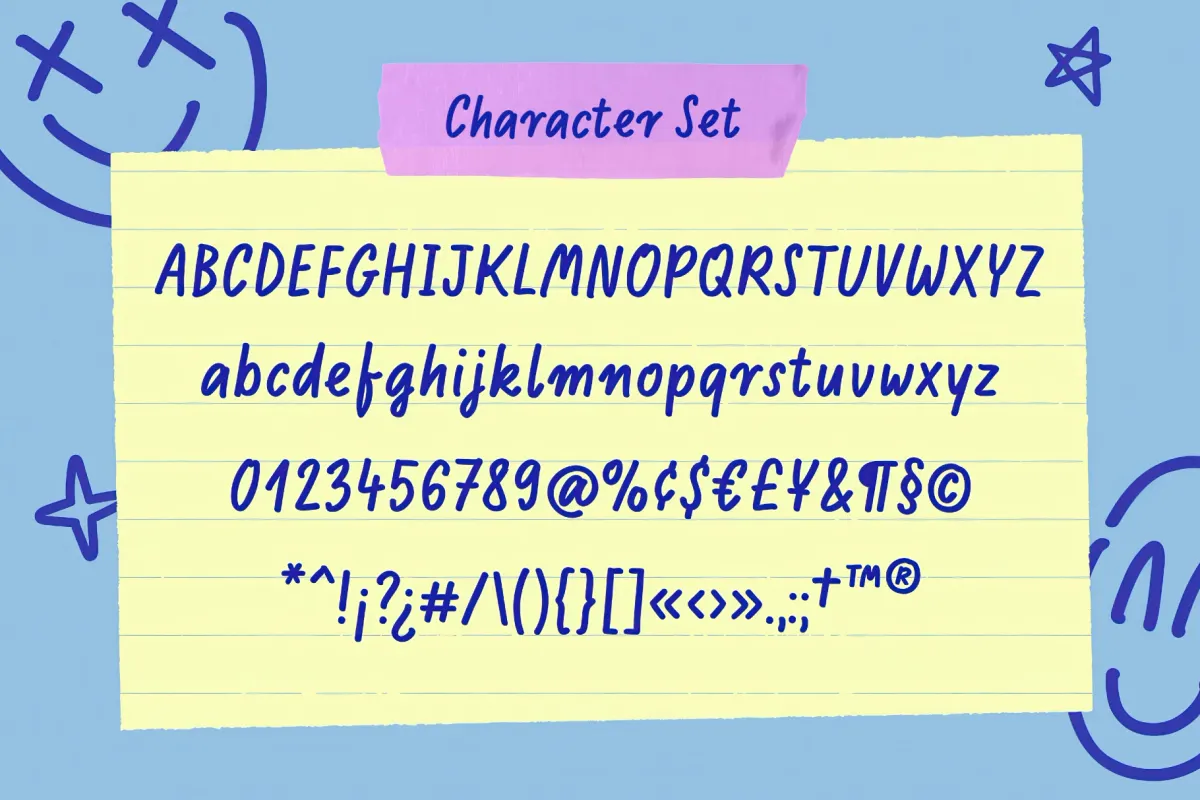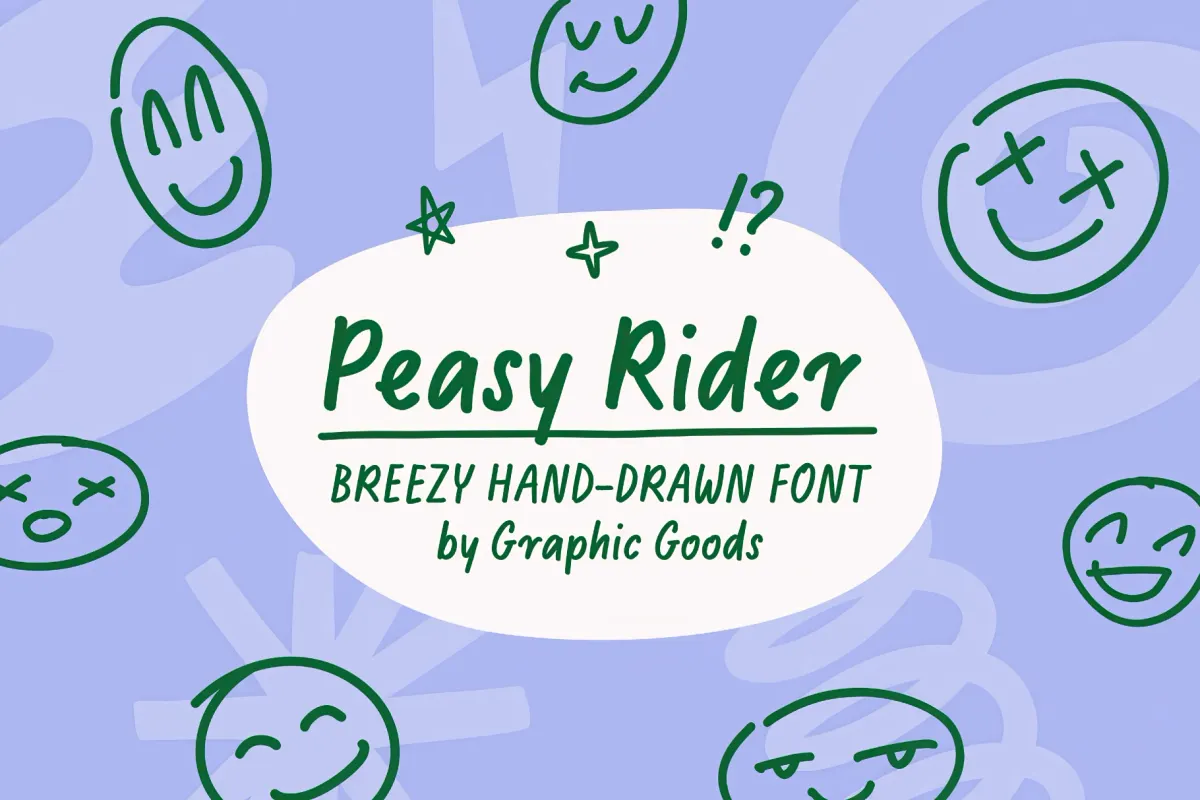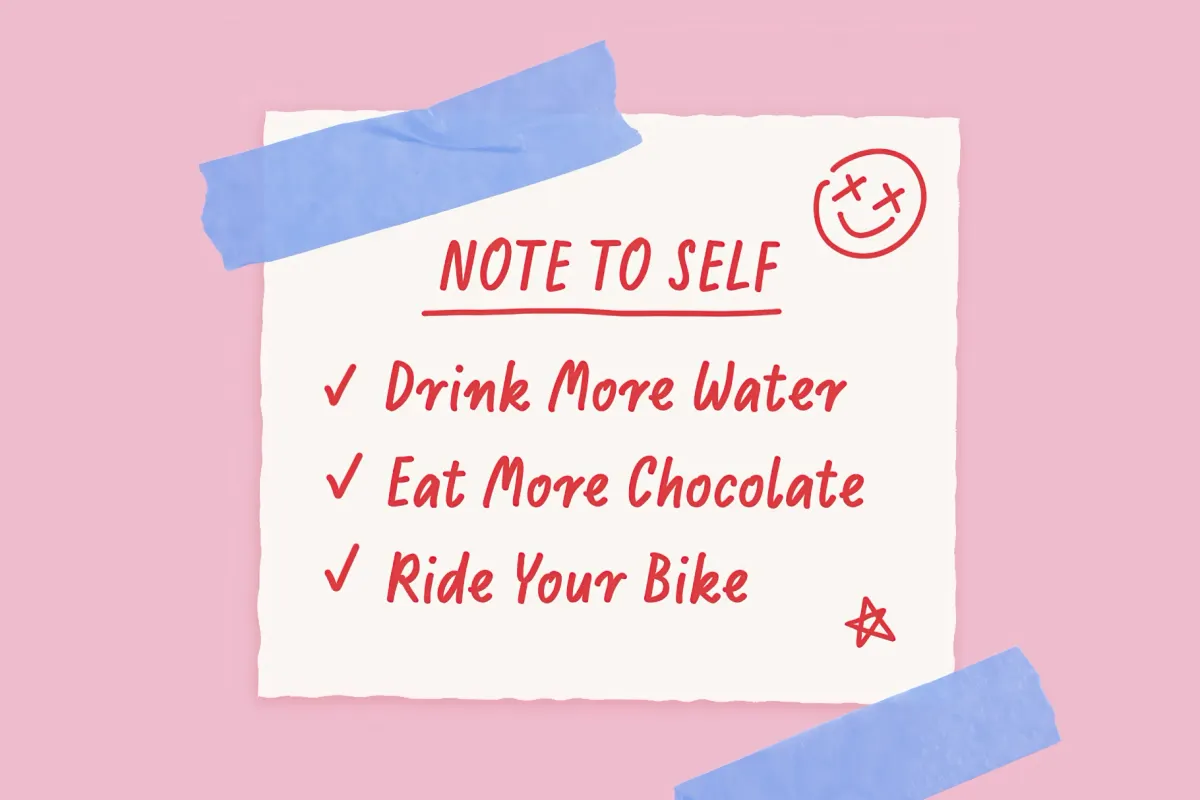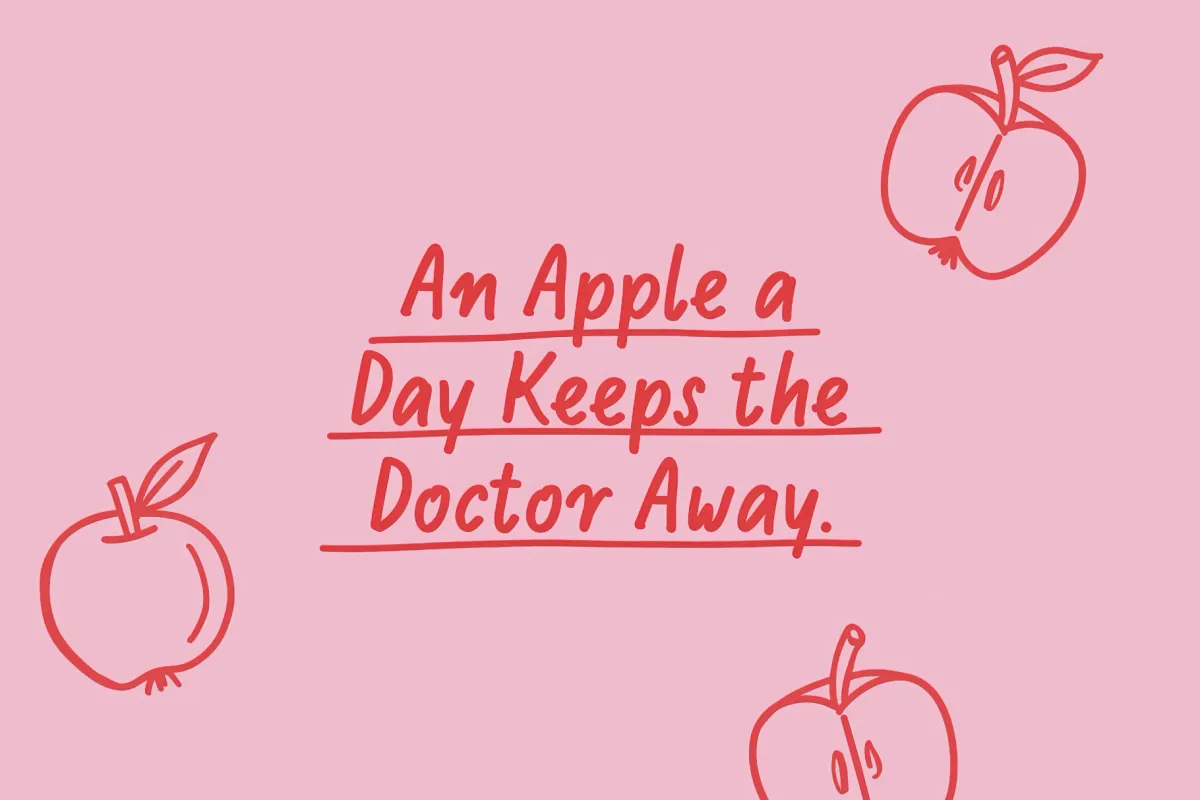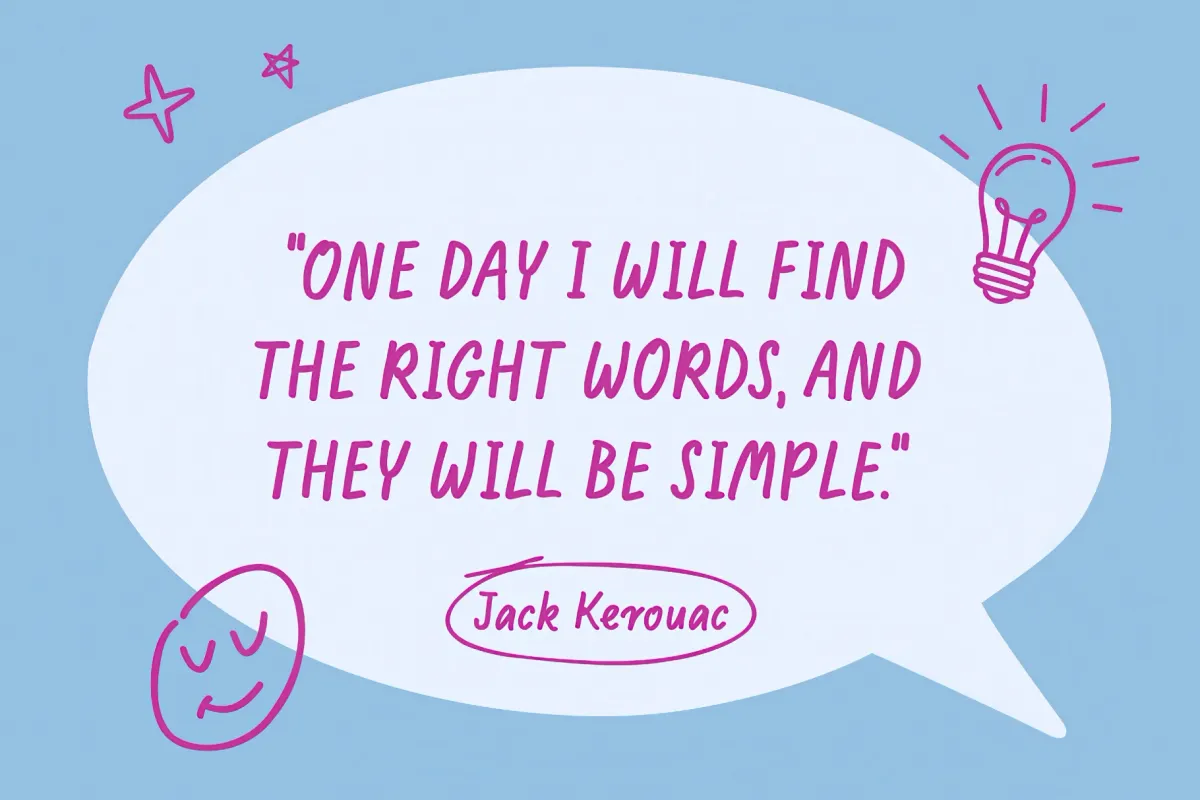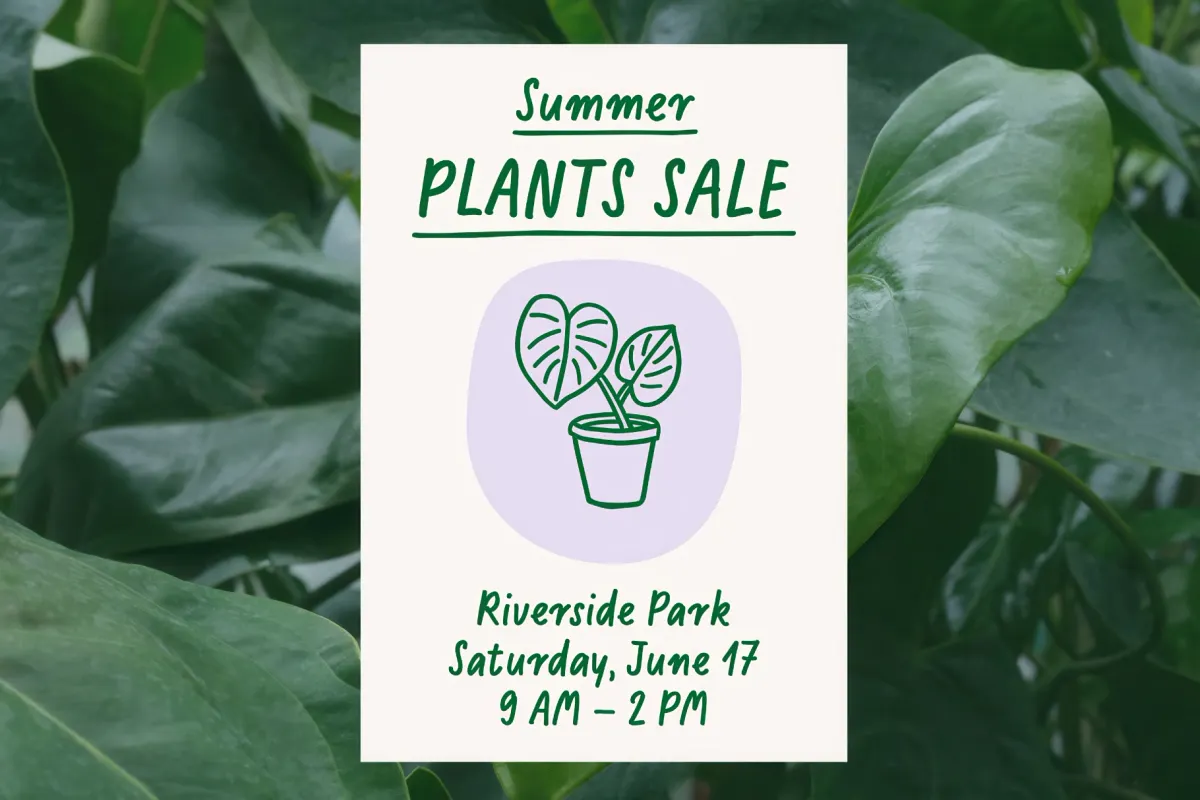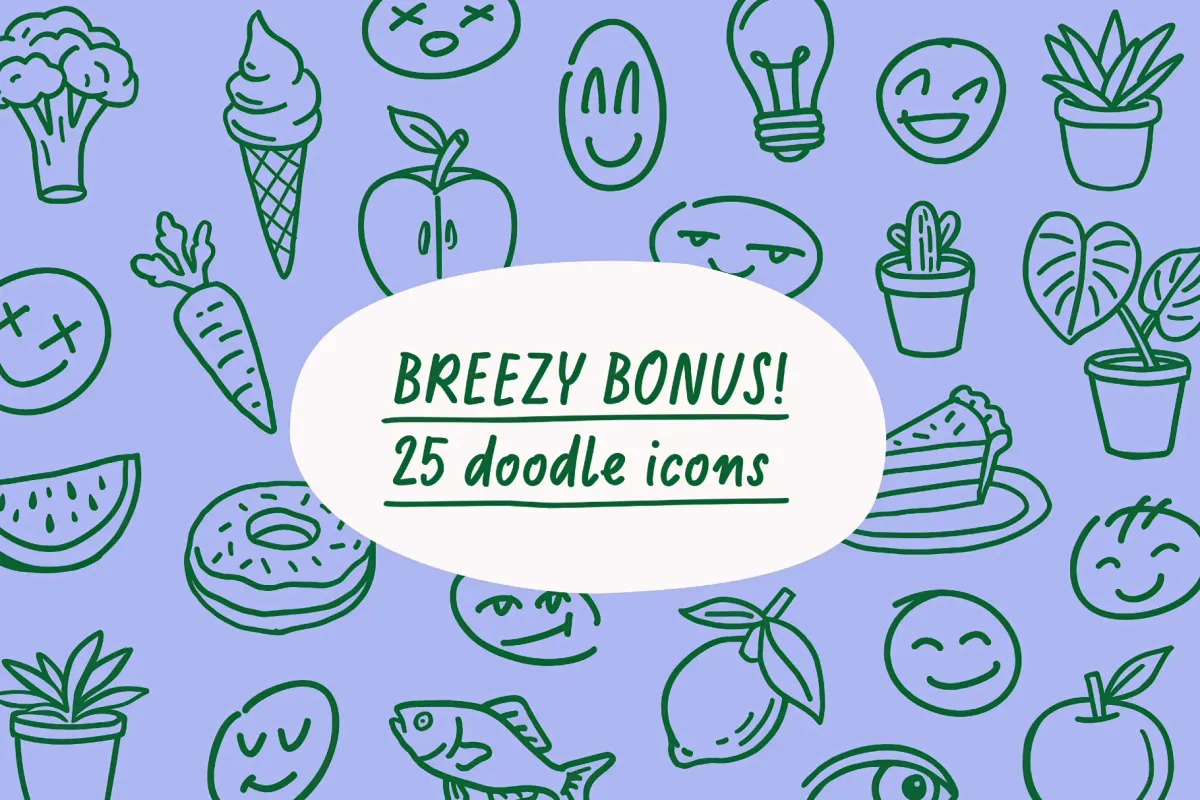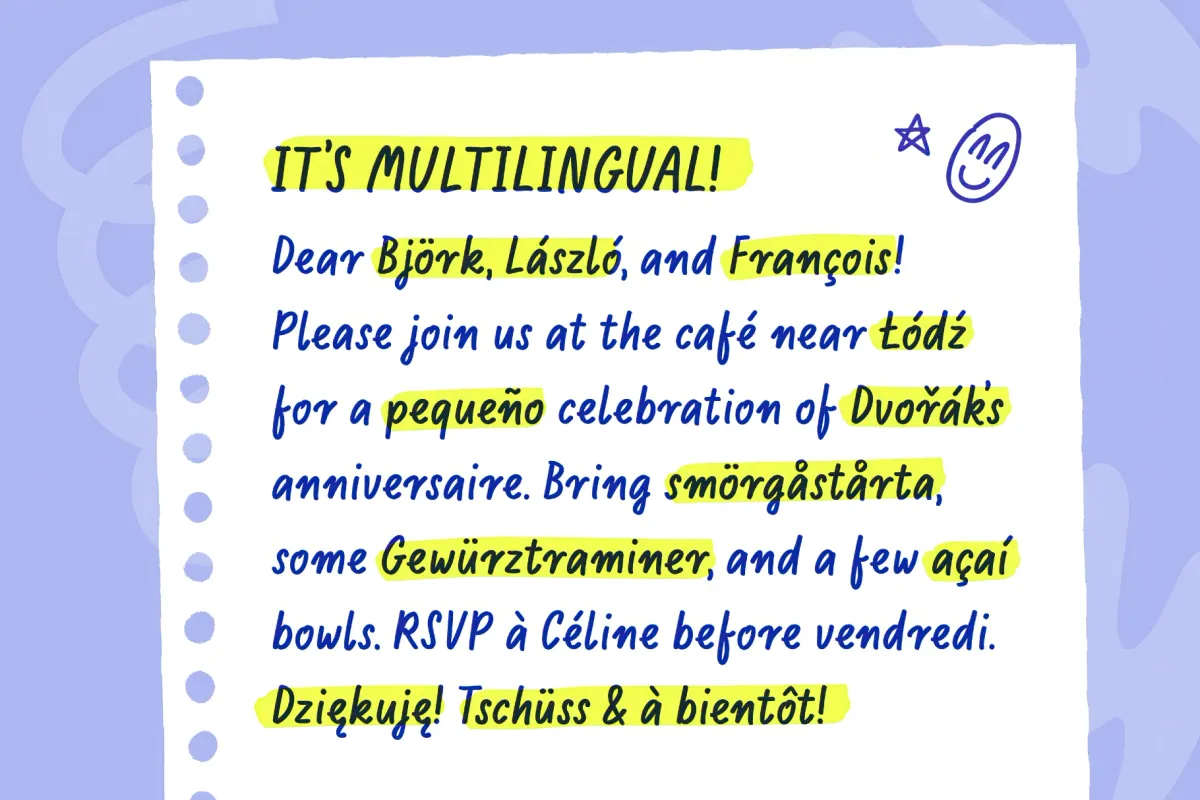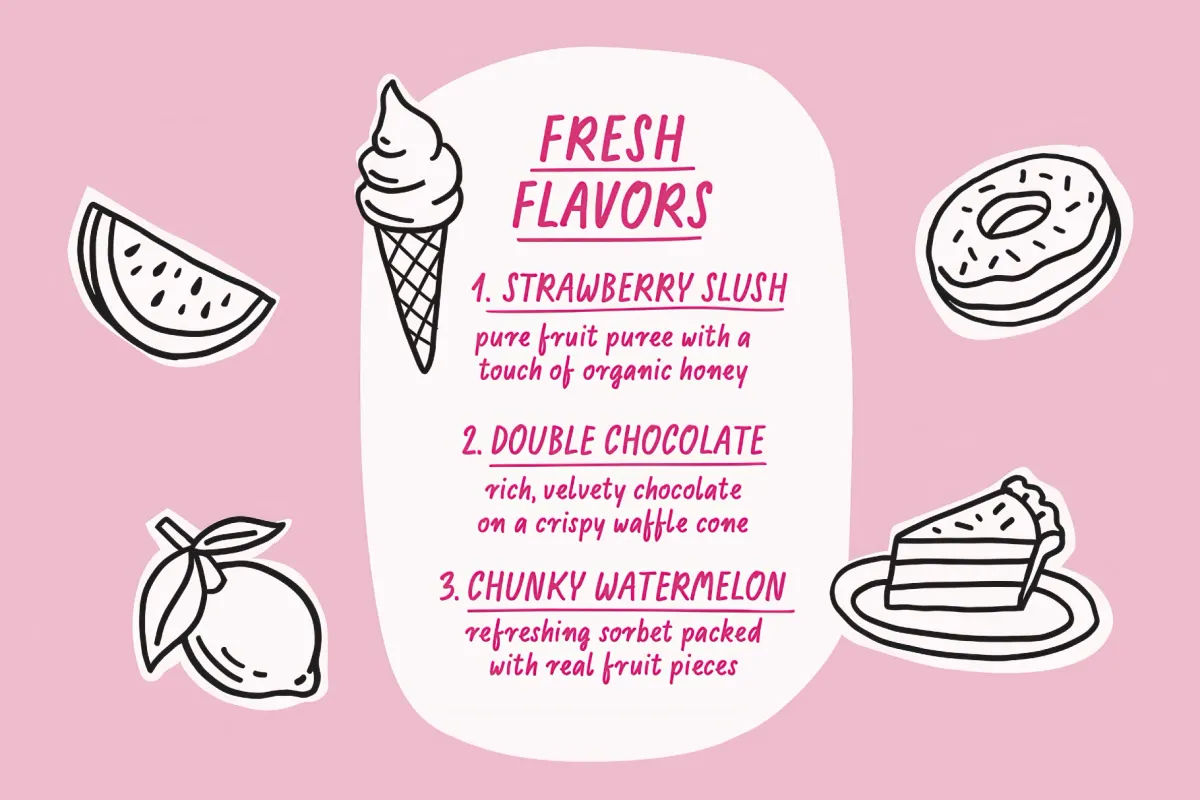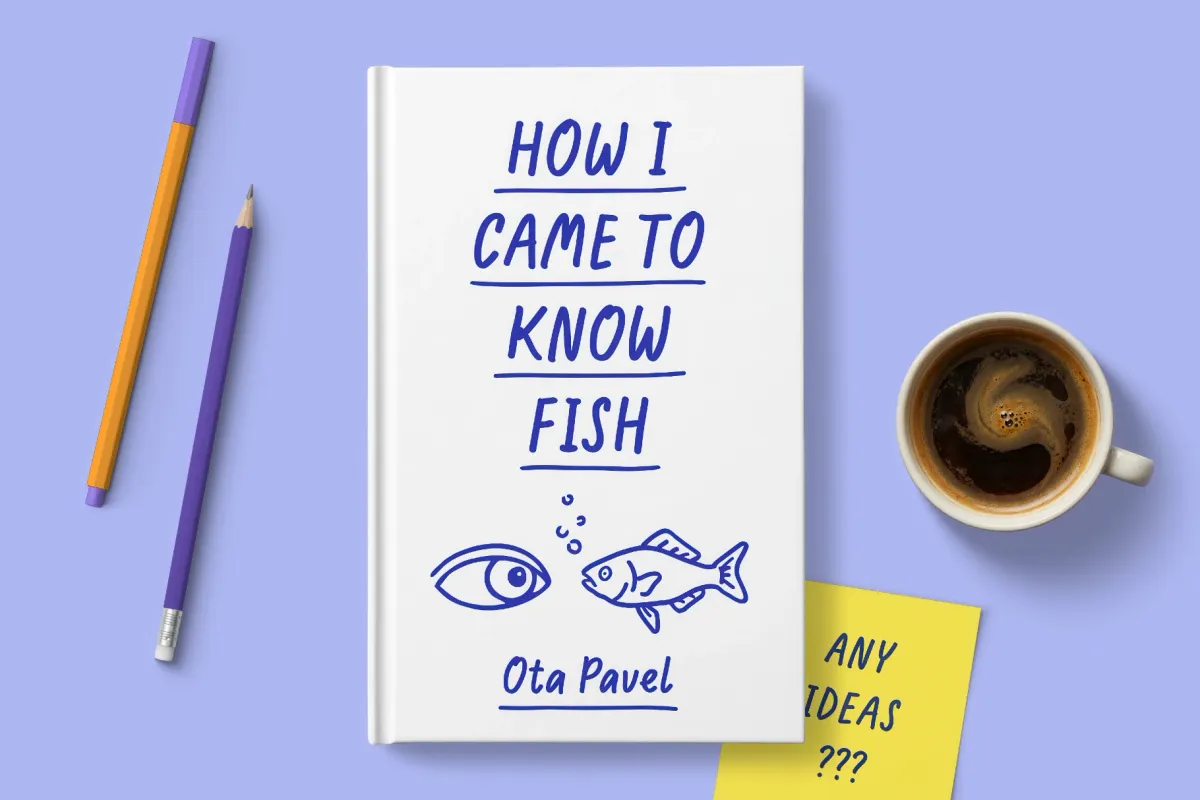
Peasy Rider Handwritten Font
Peasy Rider is a handwritten font with quick-marker rhythm and plenty of friendly disorder that makes grocery lists, café signs, classroom notes, and indie zines look properly alive. Its narrow, bouncy letterforms make you think of someone who wrote them standing at a counter, coffee in one hand, an excellent idea in the other.
Usage: food packaging, café menus, plant shop posters, book covers, editorial pull quotes, kids’ brand identities, greeting cards, social media graphics, classroom materials, event flyers, wellness notes, recipe layouts, zines, stickers, and casual merch. The included doodle icons add a scrappy illustrated layer — fruit, plants, smiley faces, snacks, and other tiny visual interruptions.
- uppercase & lowercase characters;
- numerals, punctuation & symbols;
- alternate characters;
- multilingual support;
- 25 hand-drawn illustrations.